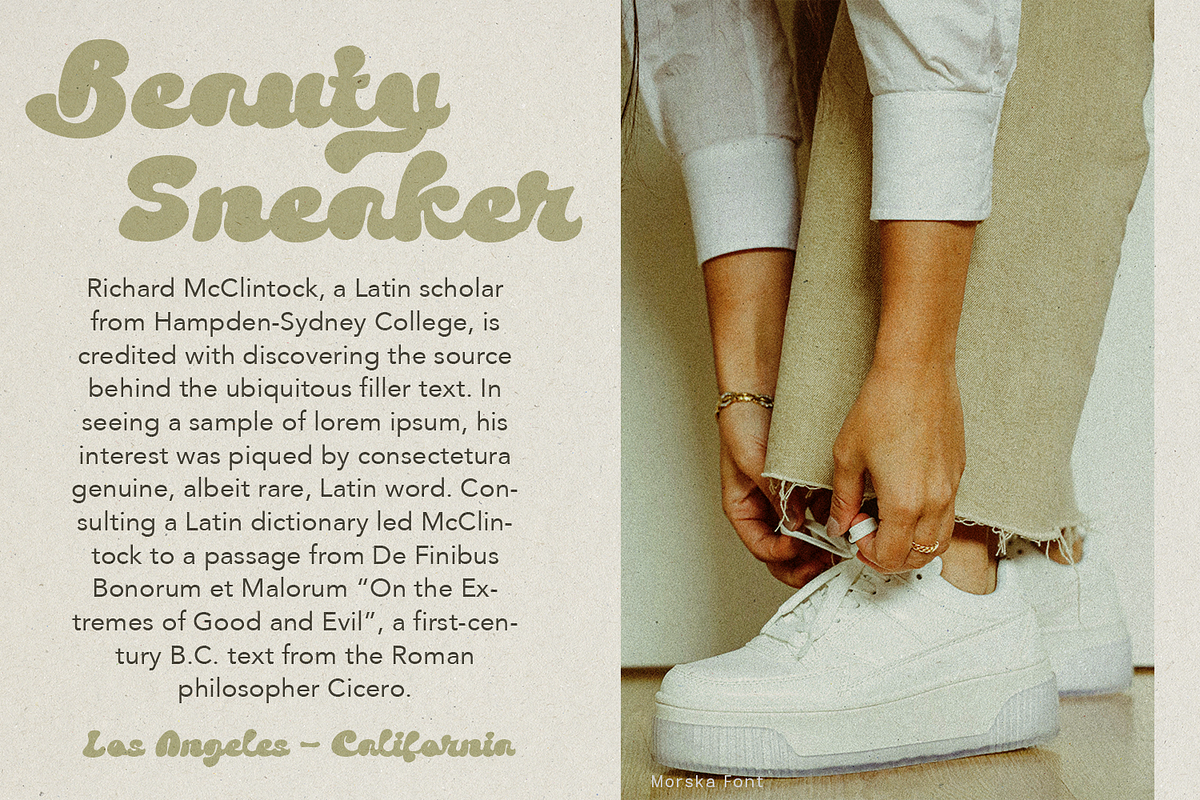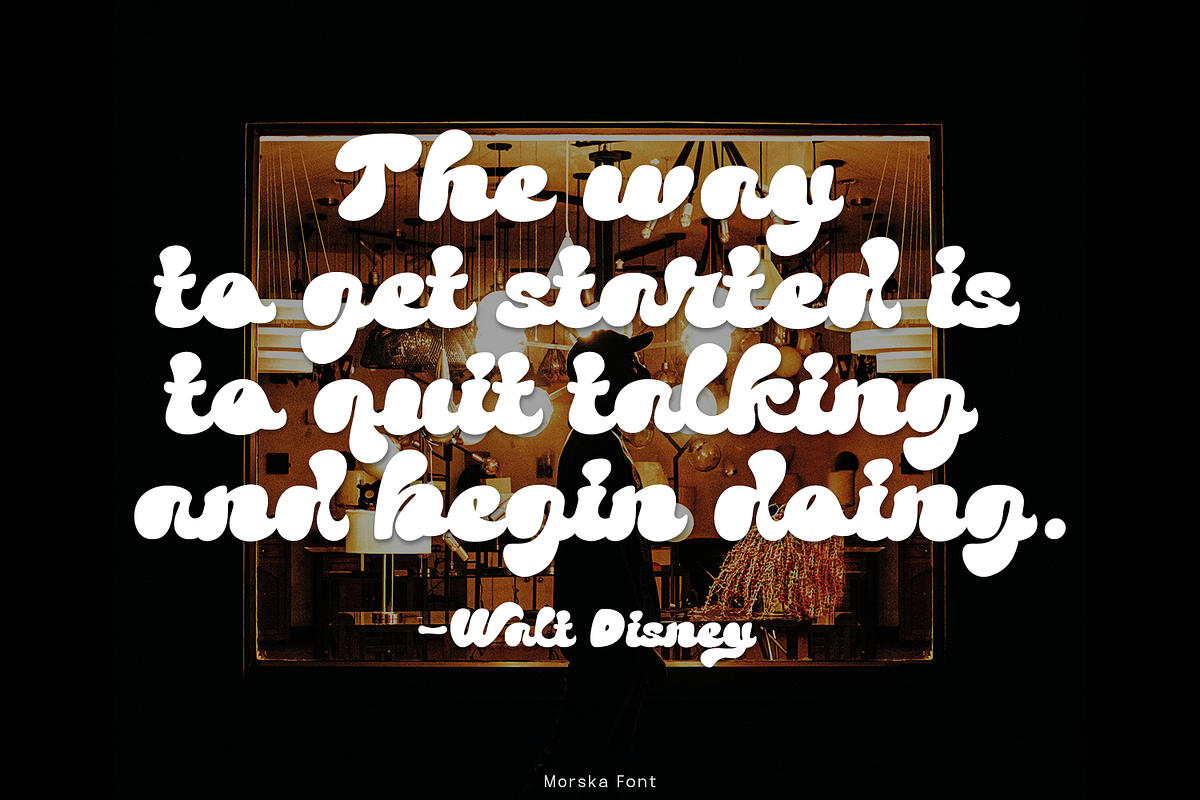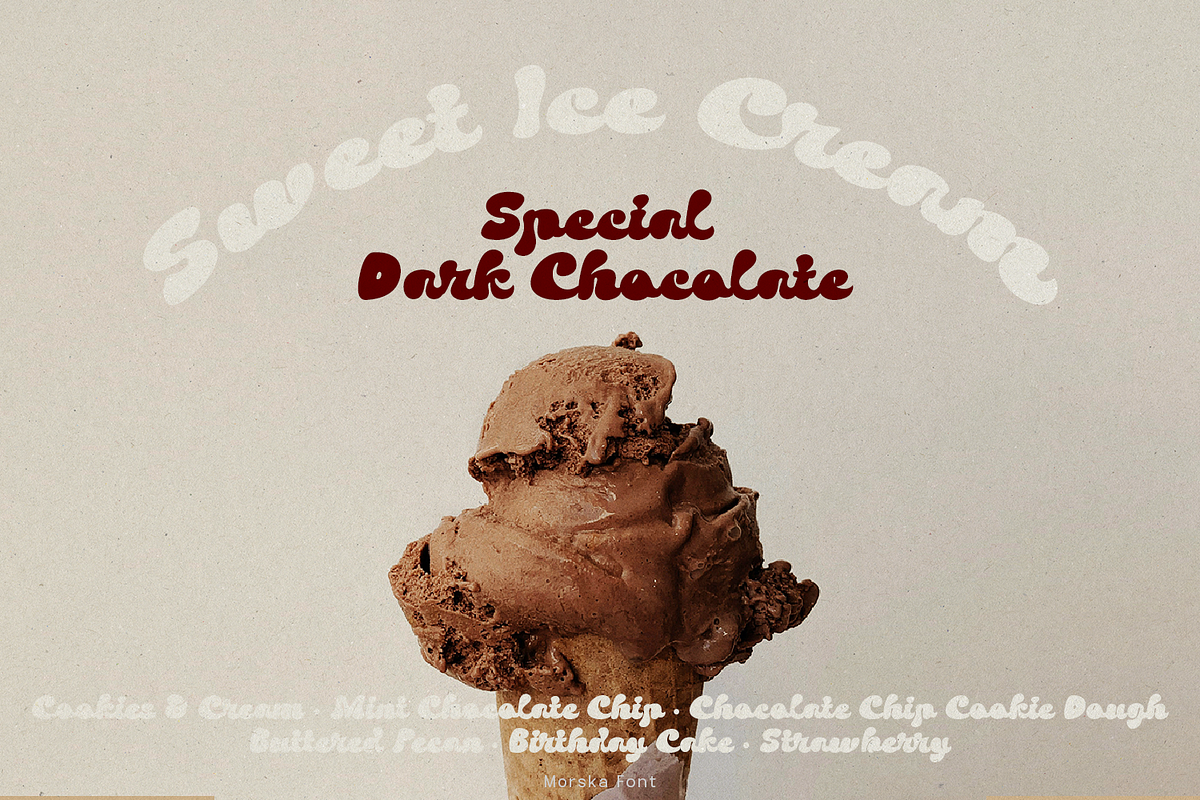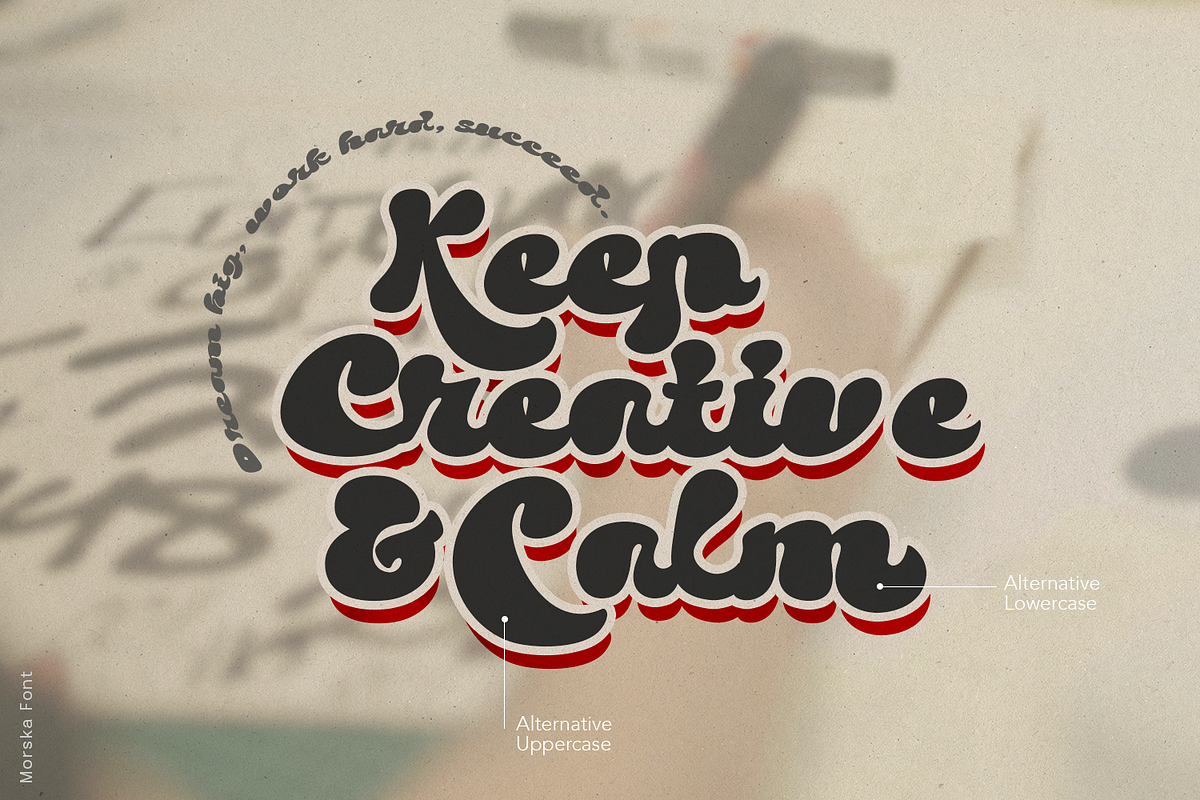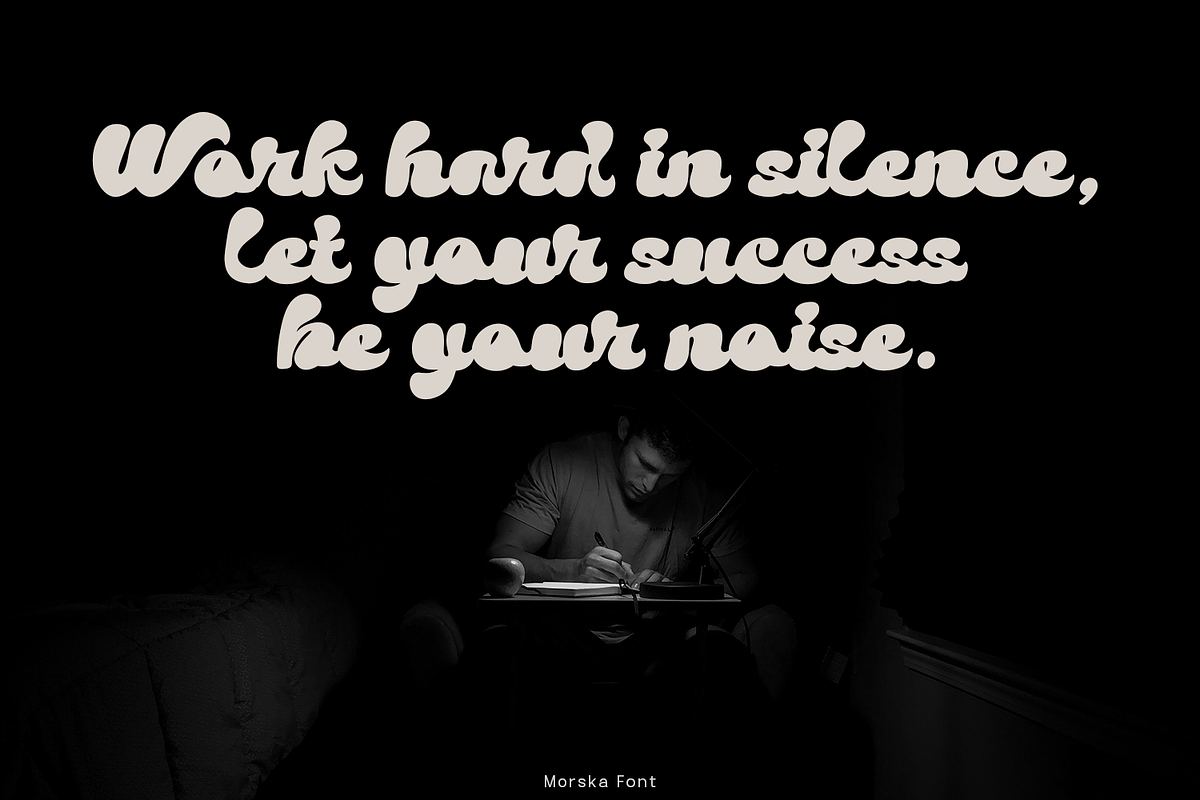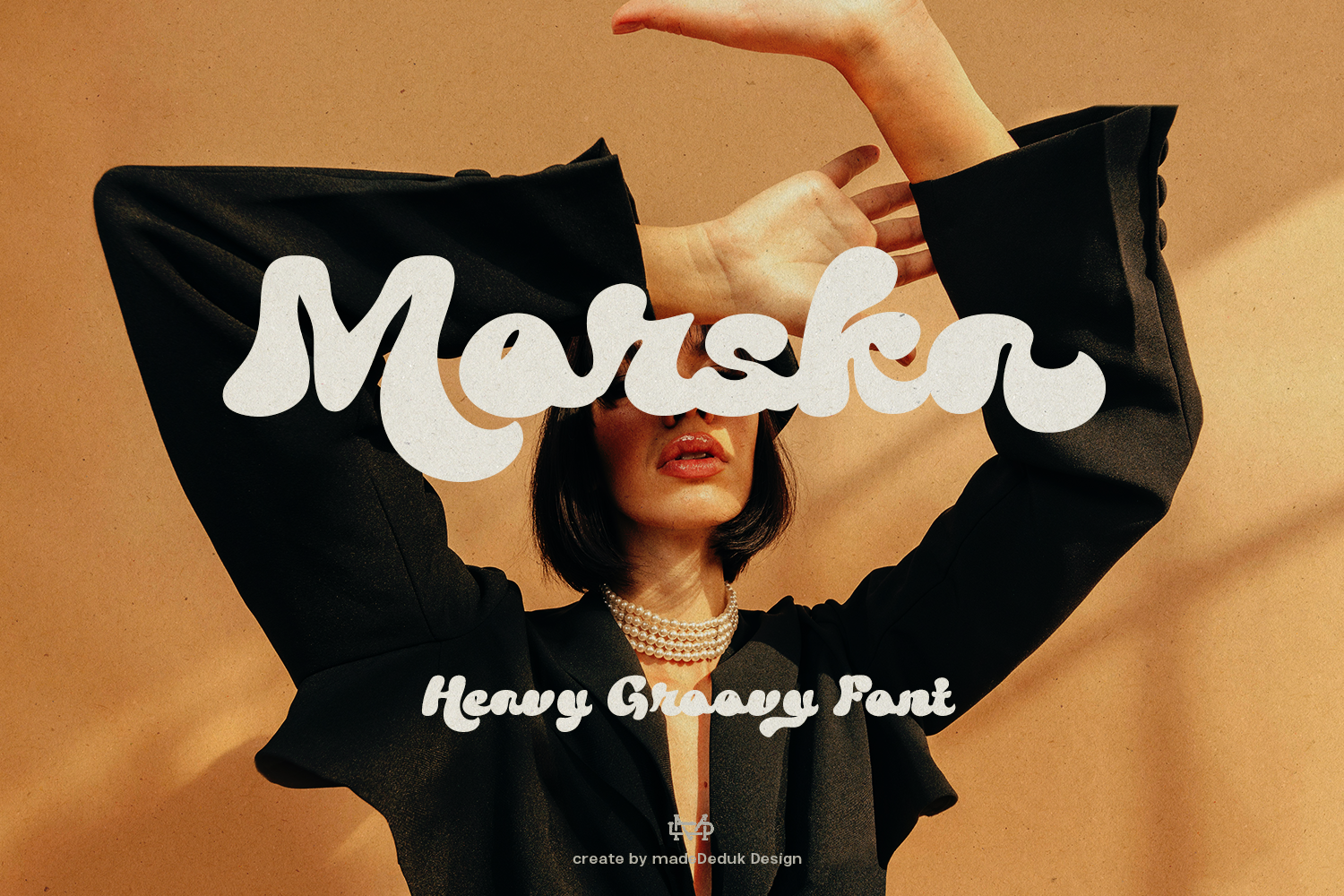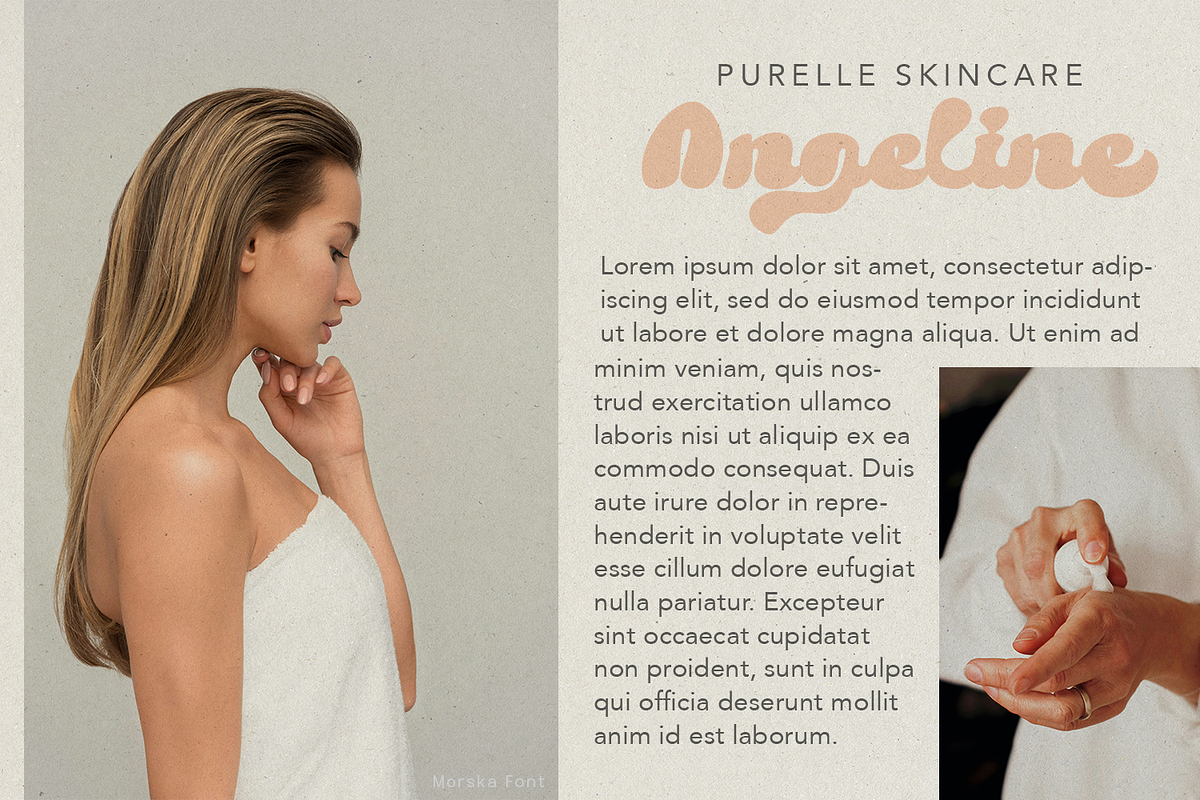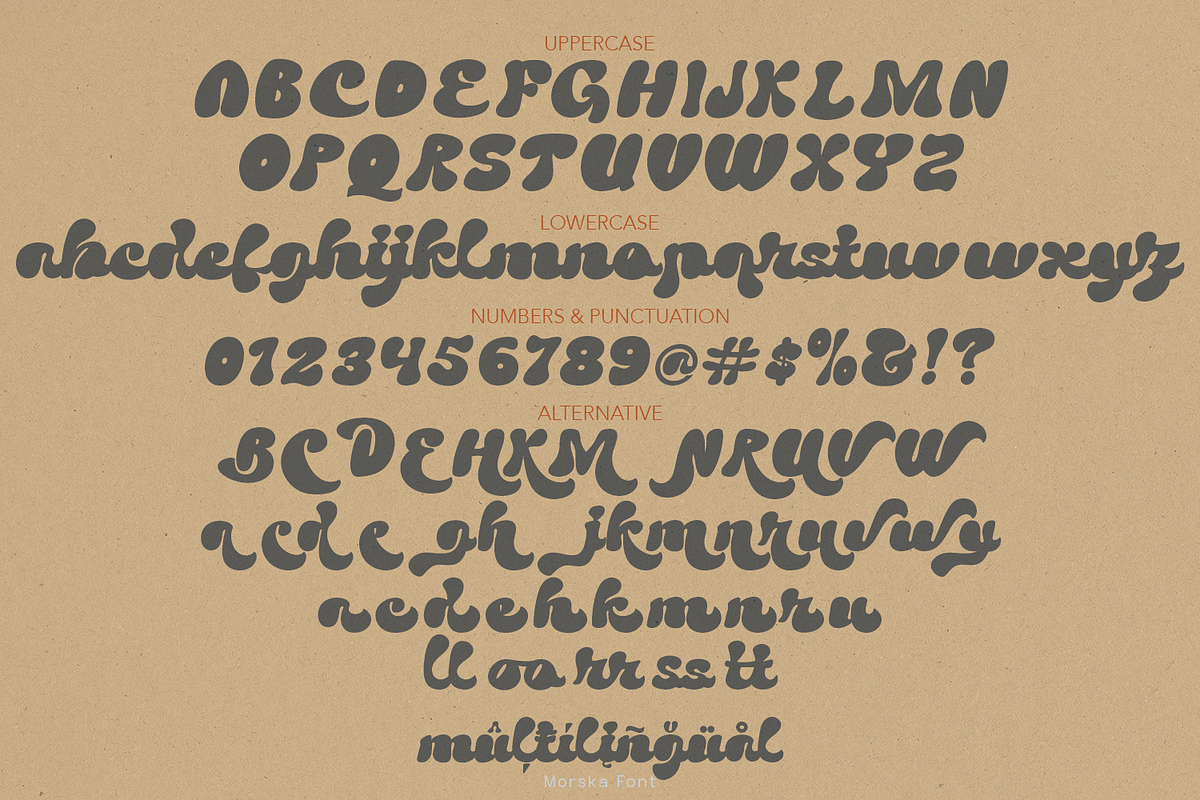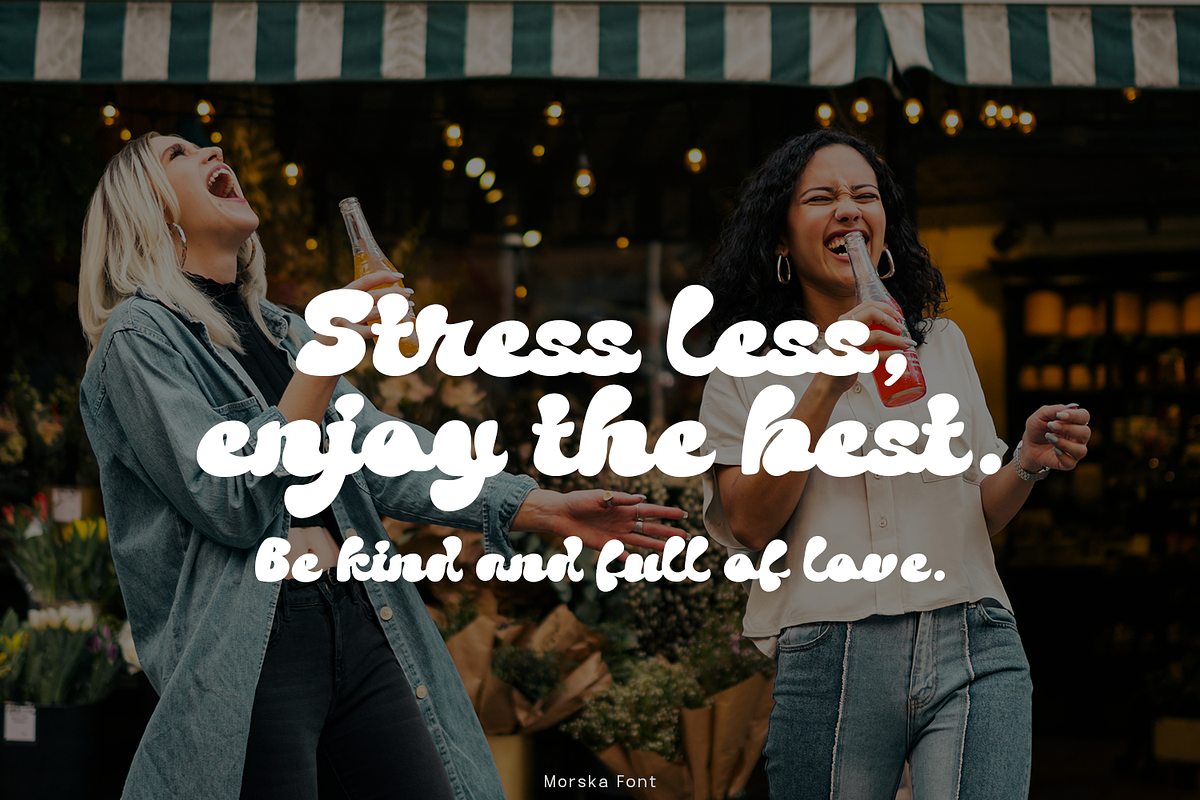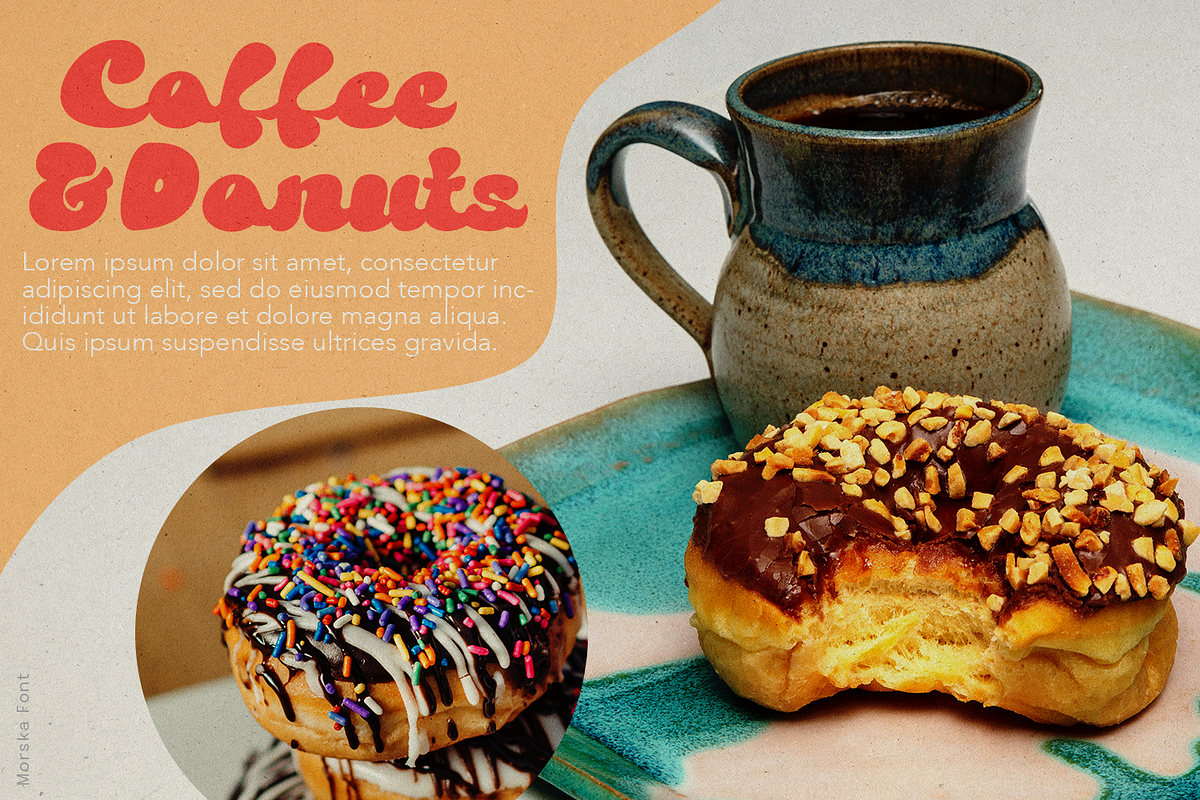
Morska Groovy Font
Morska is a heavy groovy font come with 80's script style. Retro and refined you can explore and combine creating rhythm for comfortable reading. This font perfect for any projects, such logotype, stickers, greeting / wedding cards, packaging design, headlines, brand identity, t-shirt, posters, magazines, books, Instagram, websites, and many more.